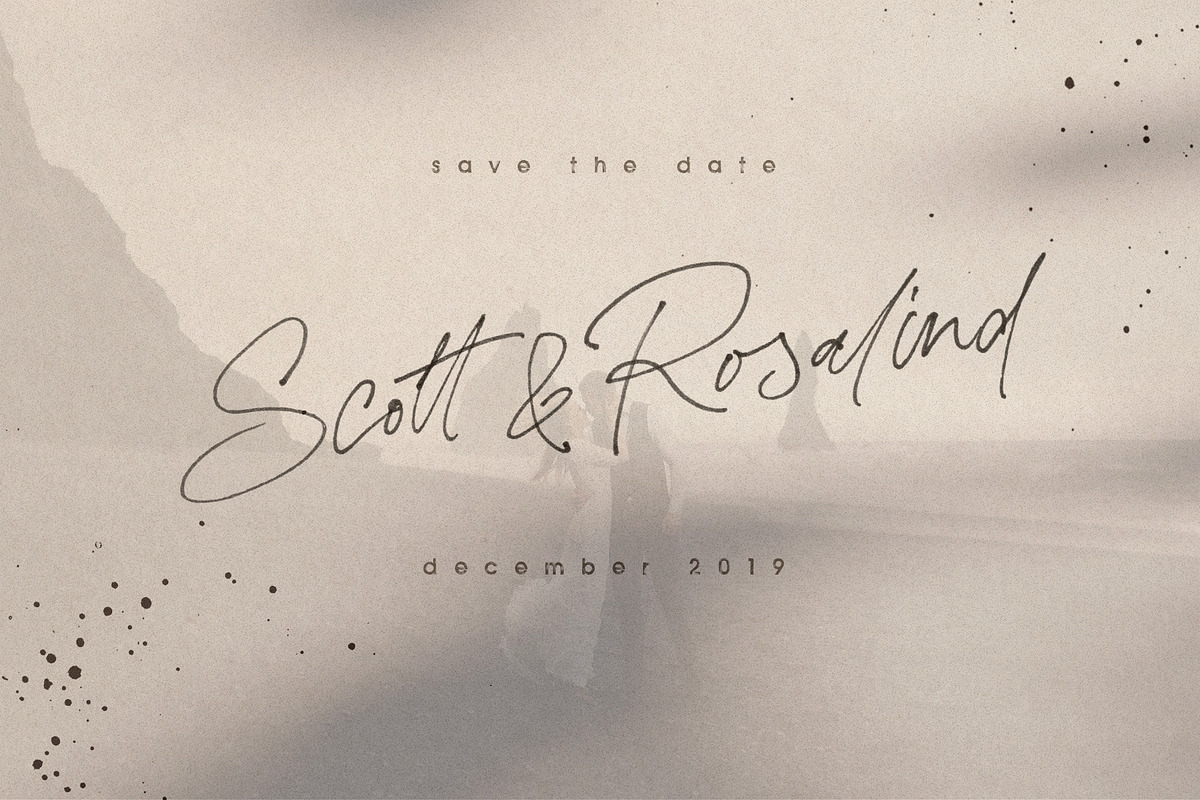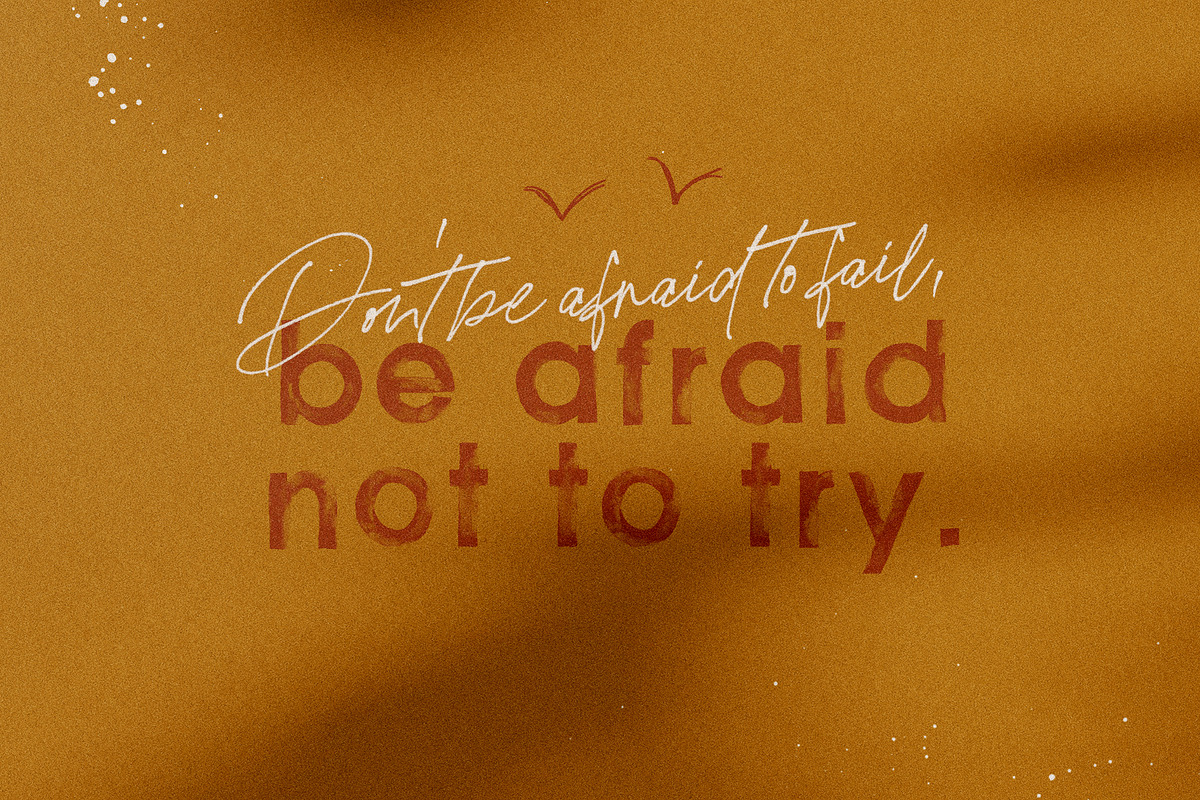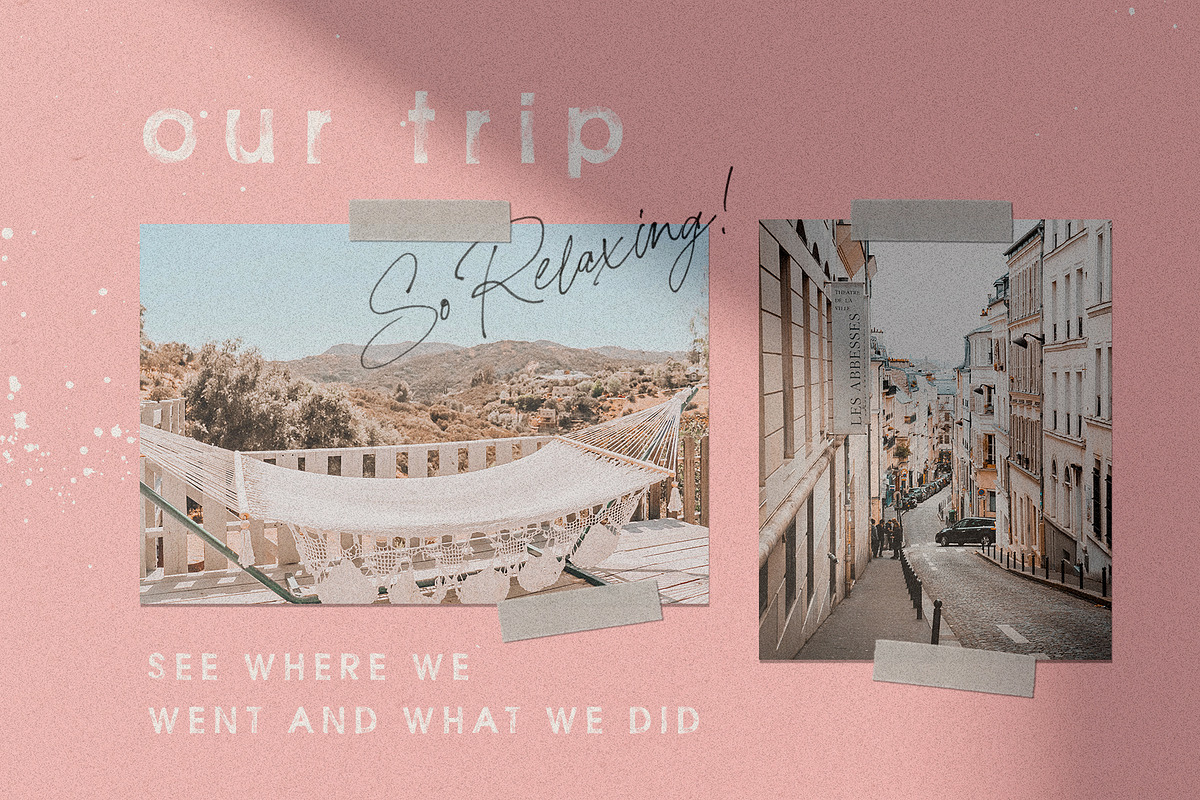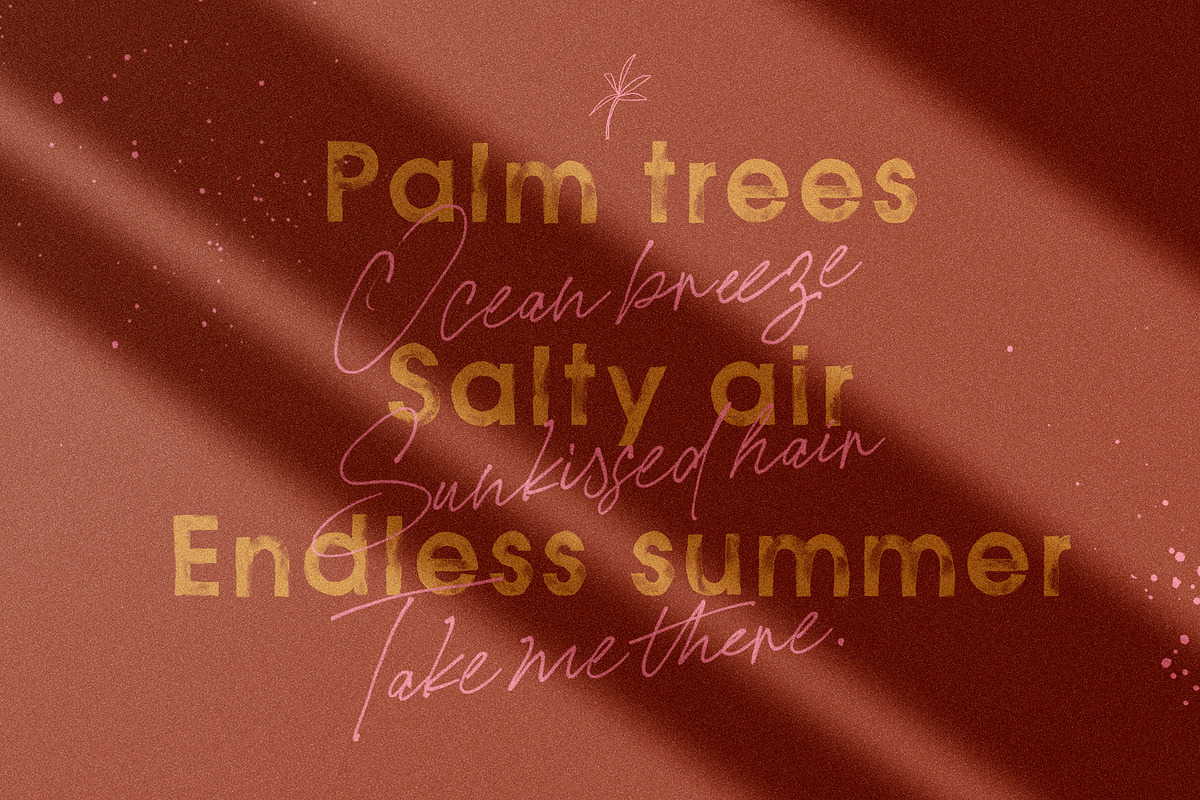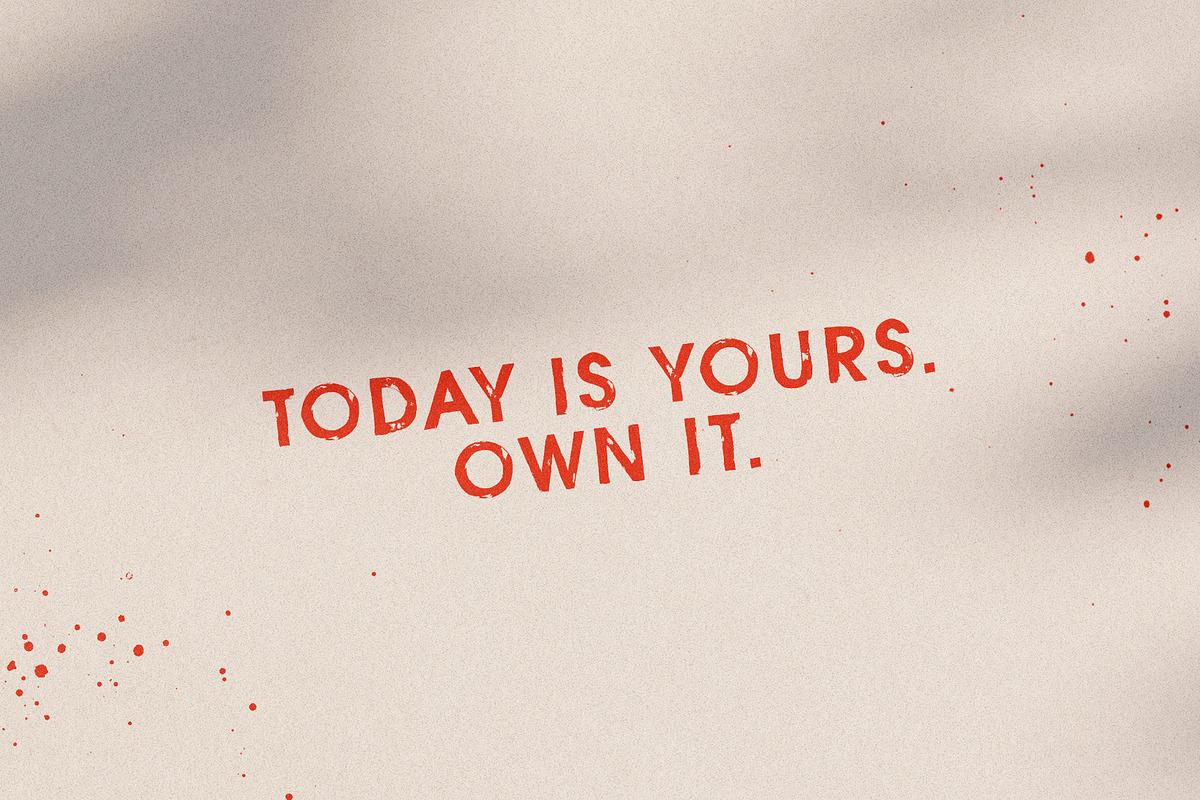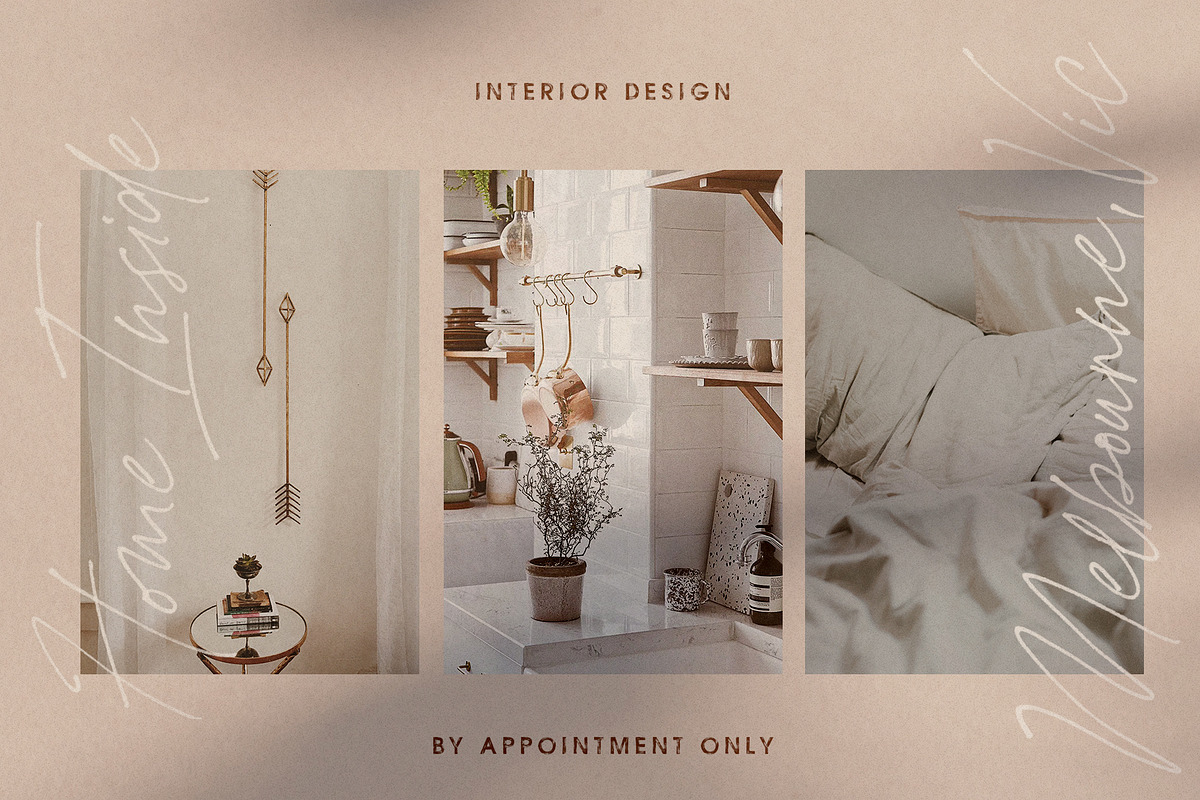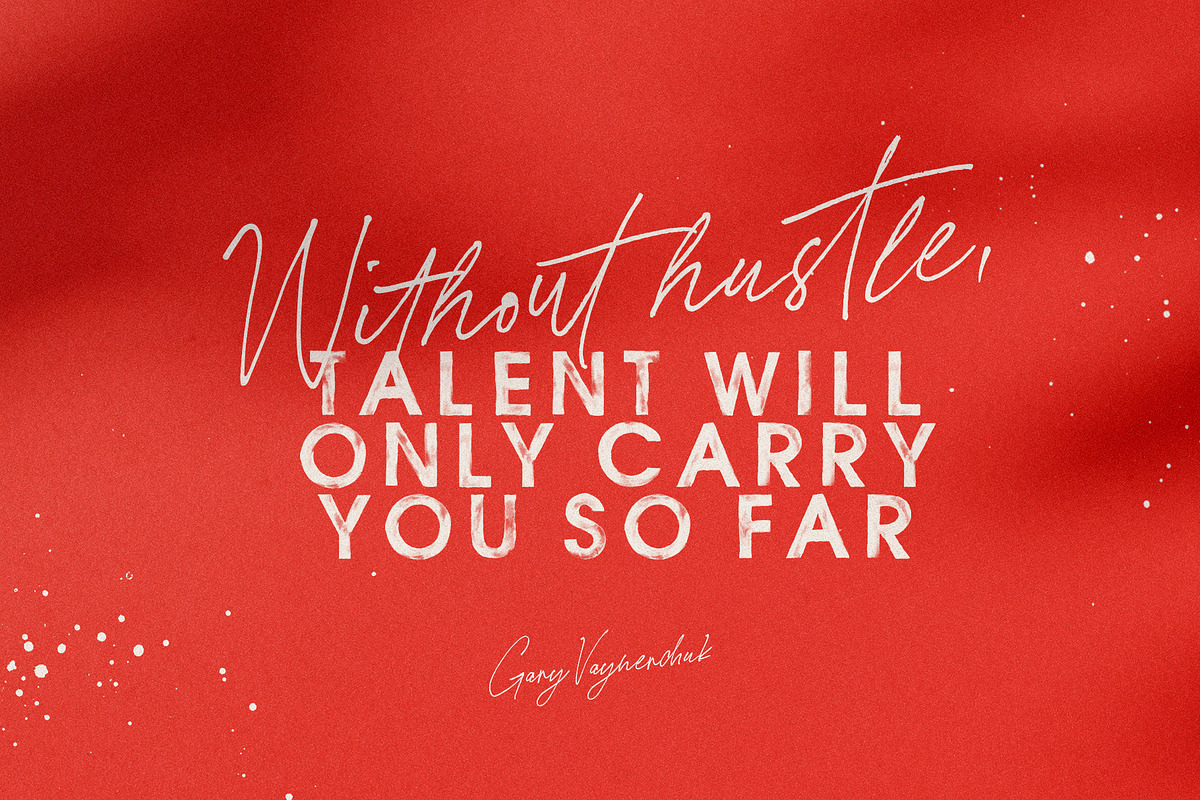
Surfers Paradise SVG Font Duo
Surfers Paradise SVG Collection is a gorgeous textured hand written font duo that makes for stunning logos, quotes, wedding invites, blog posts, Instagram, and more!
They pair beautifully together in all kinds of applications. The sans looks gorgeous with tracking set at 300, as well as where it's normal setting at zero.
Surfers Paradise SVG Script includes lots of ligatures to make everything look perfectly natural and hand written, and there is a normal Vector font for those applications that cannot use SVG Color fonts.
Surfers Paradise SVG Sans is a sans serif font that just goes so well with the script. It is hand painted in Watercolor, and has a beautiful transparent texture to it. Once again, a vector font file for this font has been included for applications that can't use the SVG Color font technology.
Then there is the fun little bonus Illustrations and background splatters.